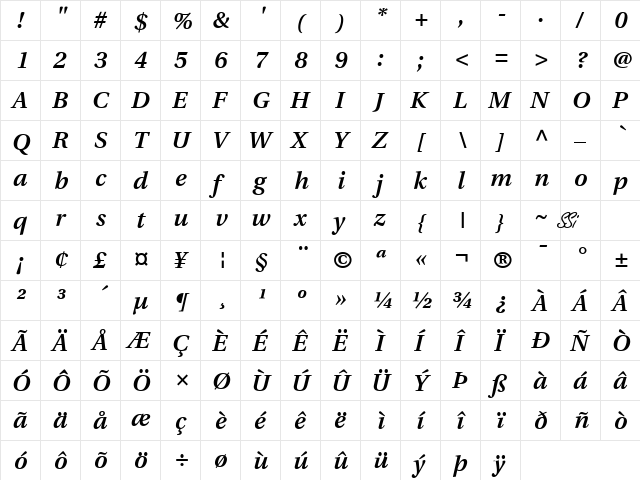
Veracity SSi Semi Bold Italic Font Preview
Veracity SSi Semi Bold Italic
Design Context for Veracity SSi Typeface
Veracity SSi is a composed and adaptable typeface that performs quietly and consistently across a wide range of design contexts. Its italic angle brings a sense of urgency and motion to the letterforms. The heavy weight commands attention and anchors typographic hierarchies.
Pro Tip: Try Veracity SSi for annotation and caption copy alongside an upright companion — the contrast in angle creates a dynamic but ordered typographic system.